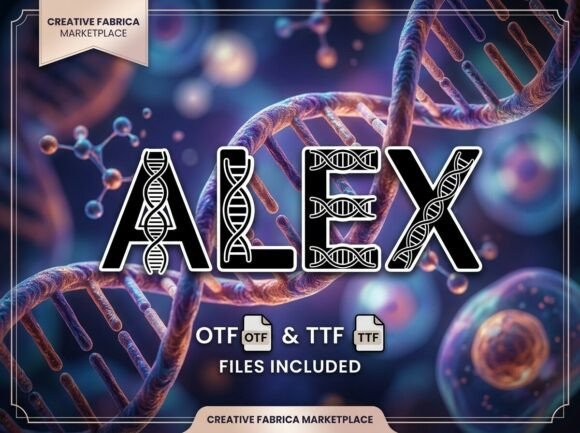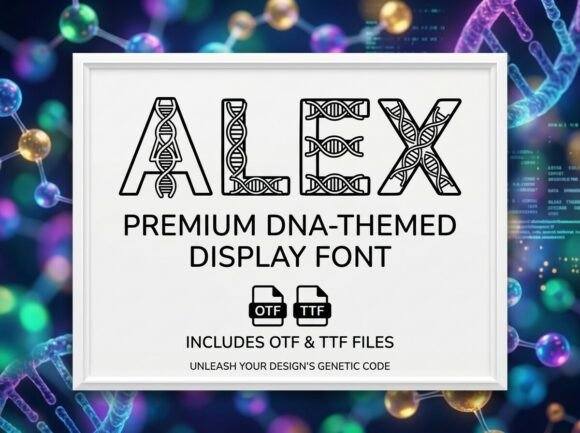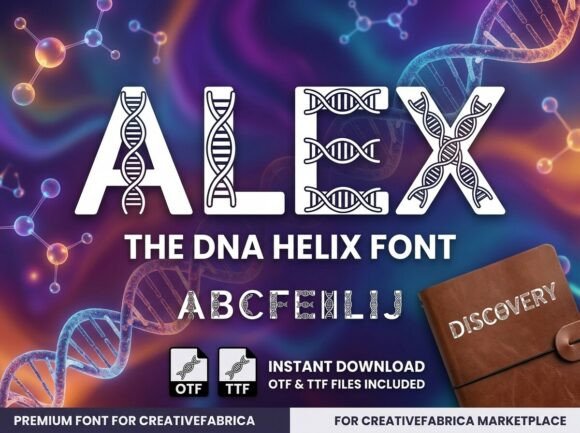
Introducing Alex Font: A Stunning Decorative Display Font
Are you tired of using the same old fonts for your designs? Do you want to make a statement and stand out from the crowd? Look no further than Alex Font, a breathtaking decorative display font that’s sure to turn heads. With its unique artistic elements and strong visual personality, this font is perfect for creators who want to add a touch of elegance and sophistication to their work.
What Makes Alex Font Special?
Alex Font is a versatile decorative display font that’s designed to be the center of attention. Its unique artistic elements and strong visual personality make it perfect for a variety of design projects, from bold headlines and artistic logos to creative packaging and more. Whether you’re a designer, craftsperson, or DIY enthusiast, this font is sure to inspire your creativity and help you create stunning works of art.
Key Features of Alex Font
- Unique Artistic Elements: Alex Font features unique artistic elements that set it apart from other fonts. Each letter is carefully crafted to make a statement, making it perfect for high-impact headlines, logos, and decorative initials.
- Strong Visual Personality: This font has a strong visual personality that’s sure to grab attention. Its bold and elegant design makes it perfect for creating stunning works of art that showcase your creativity.
- Versatile: Alex Font is versatile enough for use in a variety of design projects, from bold headlines and artistic logos to creative packaging and more.
- Professional and Polished Finish: Despite its bold and artistic design, Alex Font maintains a professional and polished finish that’s perfect for high-end designs.
IMPORTANT NOTE BEFORE PURCHASE: Alex Font is an ALL-CAPS (Uppercase Only) display typeface. It does not include lowercase letters. It is specifically designed for high-impact headlines, logos, and decorative initials where every letter is a work of art.
Why Choose Alex Font?
There are many reasons why Alex Font is the perfect choice for designers and crafters. Here are just a few:
- Add a Touch of Elegance: With its bold and elegant design, Alex Font is the perfect way to add a touch of elegance to your designs.
- Stand Out from the Crowd: This font is sure to make your designs stand out from the crowd. Its unique artistic elements and strong visual personality ensure that your work will be noticed.
- Perfect for High-End Designs: Alex Font is perfect for high-end designs that require a professional and polished finish.
How to Use Alex Font
Alex Font is easy to use and can be incorporated into a variety of design projects. Here are a few ideas to get you started:
- Headlines: Use Alex Font to create bold and eye-catching headlines that grab attention.
- Logos: This font is perfect for creating artistic logos that showcase your brand’s personality.
- Packaging: Use Alex Font to add a touch of elegance to your packaging designs.
Alex Font is a stunning decorative display font that’s perfect for designers and crafters who want to add a touch of elegance and sophistication to their work. With its unique artistic elements, strong visual personality, and versatility, this font is sure to inspire your creativity and help you create stunning works of art. So why wait? Purchase Alex Font today and take your designs to the next level!